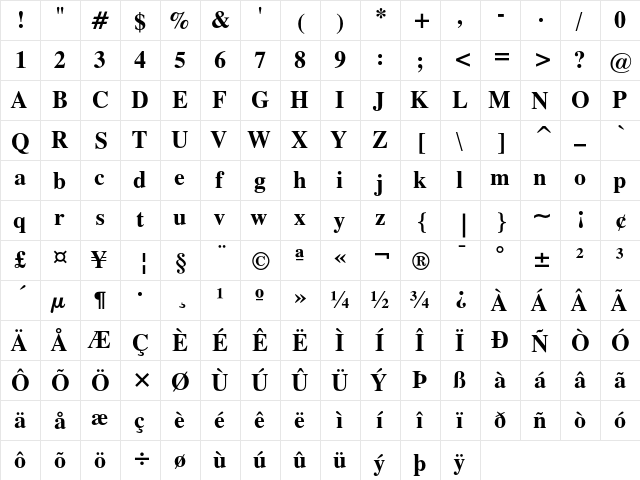
Dutch 801 Bold Font Preview
Dutch 801 Bold
Dutch 801 Bold Font Details
Design Context for Dutch 801 Typeface
Dutch 801 offers clean, dependable letterforms without strong stylistic allegiance, making it a practical choice for designers who need flexibility. The heavy weight commands attention and anchors typographic hierarchies.
Pro Tip: Use Dutch 801 in both headline and body roles to test its range before committing to a single application.